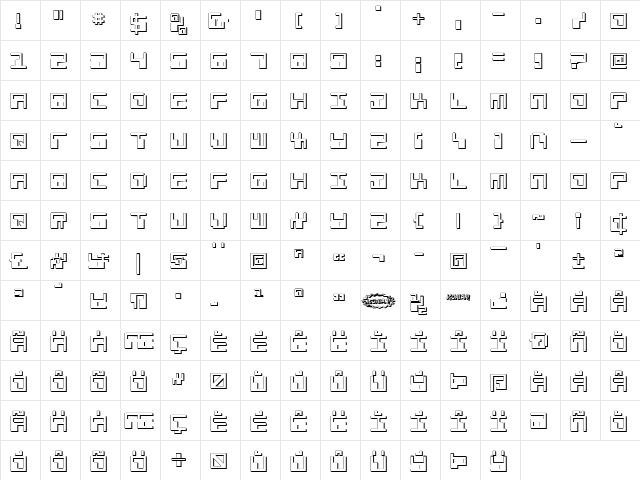
Phaser Bank 3D Regular Font Preview
Phaser Bank 3D Regular
Design Context for Phaser Bank 3D Typeface
Phaser Bank 3D is a composed and adaptable typeface that performs quietly and consistently across a wide range of design contexts.